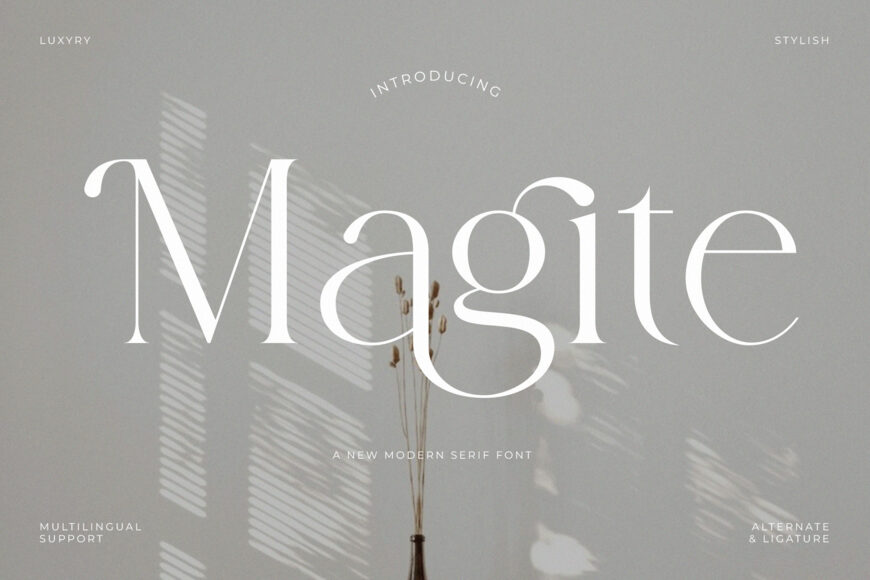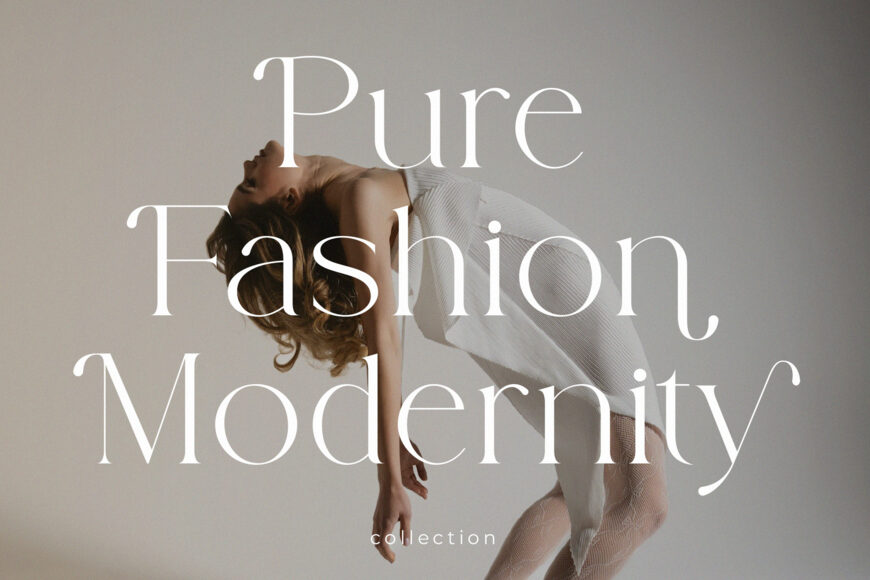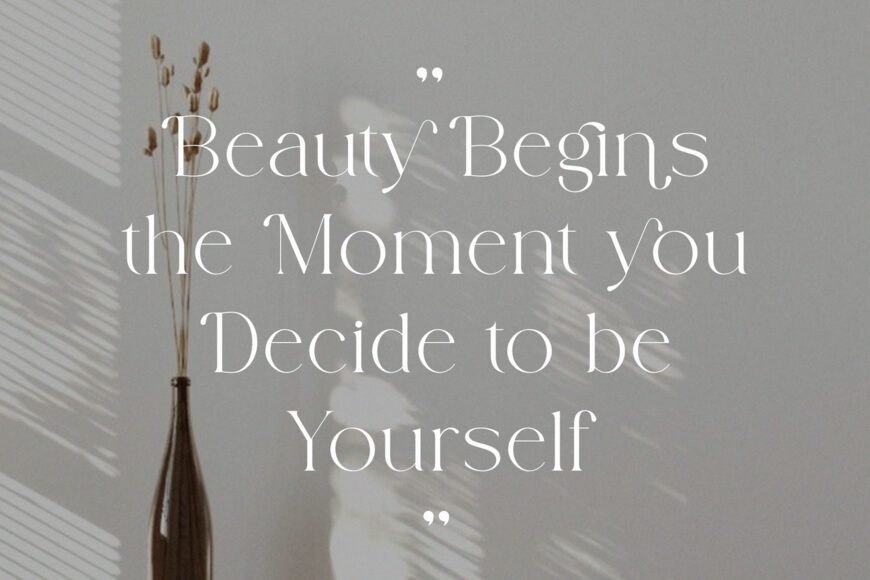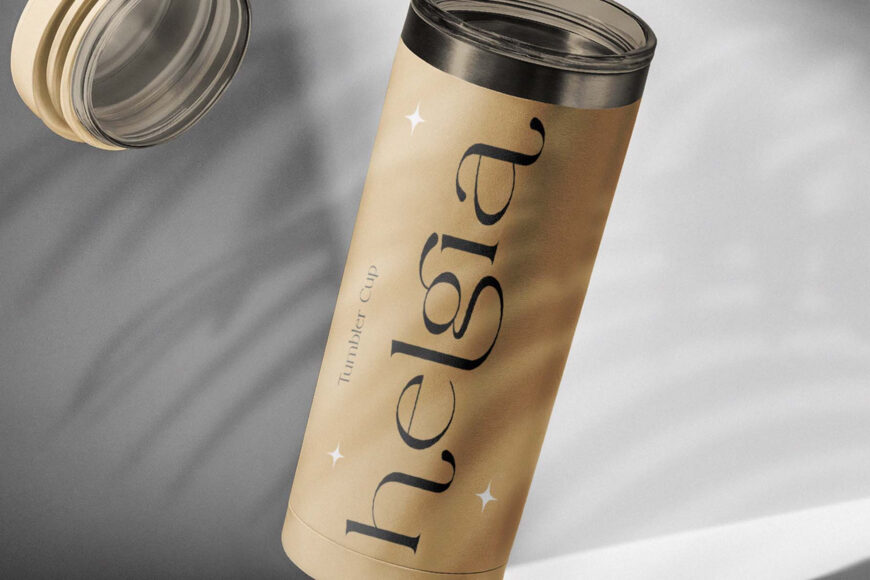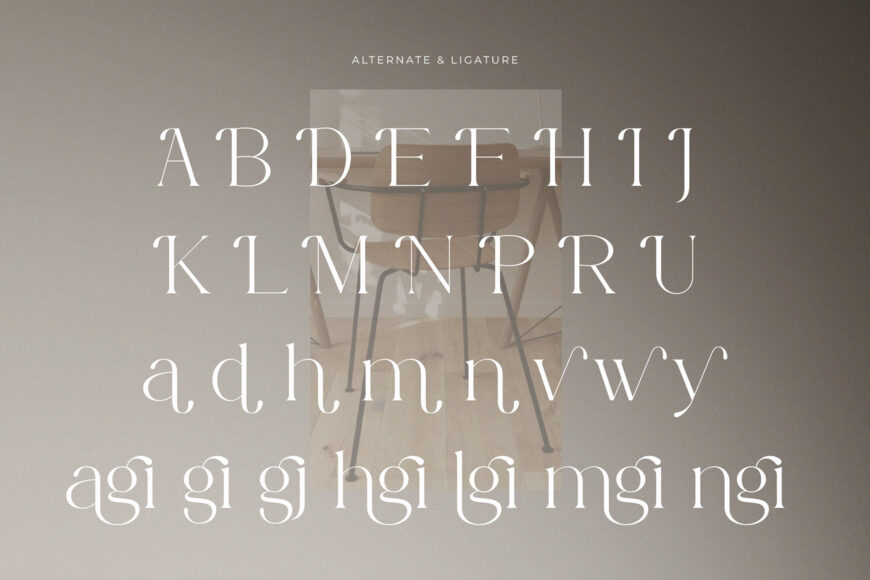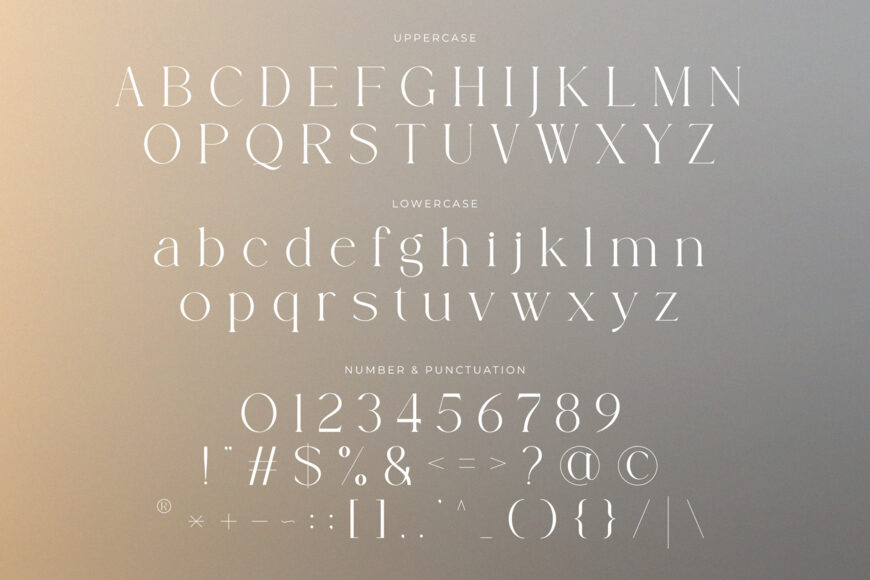
Magite Font
Evoke a sense of ethereal luxury with Magite, a stunning display serif that captures a “timeless-and-tailored” soul. This typeface features graceful, high-contrast letterforms characterized by rhythmic, sweeping descenders and unique, teardrop-shaped terminals that bridge the gap between classic editorial romance and contemporary minimalism.
With its sophisticated structural weight and prestigious personality, Magite is the premier choice for independent jewelry branding, high-end lifestyle magazines, boutique hospitality logos, and high-impact “serene-and-stately” social media headers.